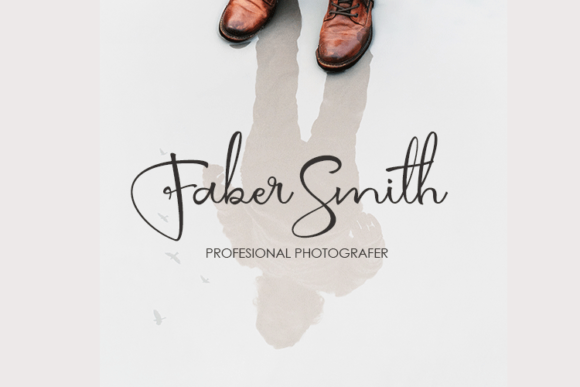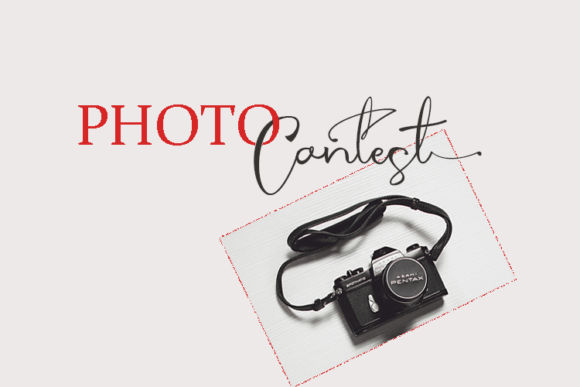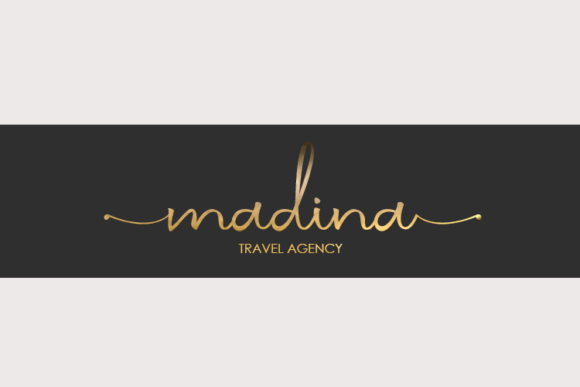
Introduction to Party Lover Font
Have you ever found yourself rummaging through your design files, searching for the perfect font to match the vibe of your creative project? I’m sure we’ve all been there – staring at a blank canvas, trying to decide on the perfect typography to set the tone for our design. For me, that moment of epiphany came when I stumbled upon the Party Lover Font, a stylish and delicate script font that instantly elevated my design to the next level.
With its clean, thin, and smooth vibe, the Party Lover Font is a game-changer for any design that needs a touch of elegance and sophistication. And the best part? It’s a high-quality design resource that’s available for free download, making it an absolute must-have for any designer looking to add a little extra flair to their creative project.
Whether you’re working on a branding project, a social media graphic, or even a wedding invitation, the Party Lover Font is sure to be a valuable addition to your design arsenal. And with its transparent background, you can easily customize it to fit your design needs. So, let’s dive into the world of this amazing font and explore what makes it so special.
Key Features of Party Lover Font
- High-quality design for creative projects, making it an excellent design resource for various applications.
- Unique and playful design, perfect for creating eye-catching graphics, logos, and other visual elements.
- Features a transparent background, allowing for seamless integration with other design elements.
- Designed with a large character set, including uppercase and lowercase letters, numbers, and special characters.
Honest Review: Party Lover Font
As a designer, I’m always on the lookout for high-quality design resources that can elevate my creative projects. Recently, I stumbled upon the Party Lover Font, and I’m excited to share my thoughts on this free download.
What works well about the Party Lover Font is its playful and energetic vibe. The font is perfect for designs that need a bit of whimsy and fun, making it ideal for parties, events, and celebrations. The font’s transparent background also makes it easy to use on various backgrounds, giving designers more flexibility with their designs. ✨
The font’s versatility and the fact that it’s free to download make it a great addition to any designer’s toolkit. It’s also great for designers who are working on a budget or need a quick solution for a design project.
- Limited font styles (only a few options available)
- Might not be suitable for corporate or professional designs
Overall, the Party Lover Font is a fun and creative design resource that’s perfect for designers who want to add a bit of personality to their projects. While it has its limitations, it’s definitely a great option for designers who need a quick and easy solution. ⚠️
I would recommend the Party Lover Font to designers who are working on creative projects, such as social media graphics, party invitations, or event promotions. Just be aware of its limitations and use it accordingly.
Party Lover Font is perfect for creative projects that require a fun and playful touch. Use it for party invitations, social media graphics, or any other design that needs a pop of personality.